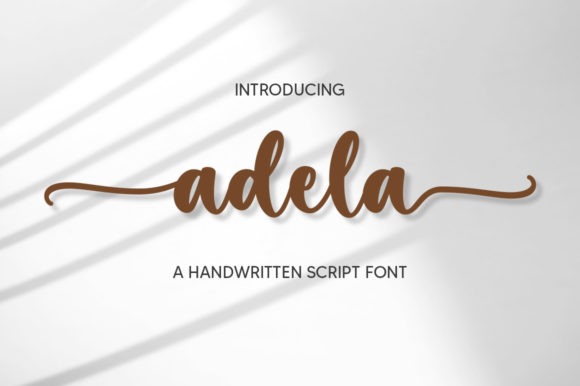
Feast your eyes on 'Adela Font' - the loveliest handwritten font in town, brought to you by the creative genius of Nirmala Creative. 'Adela Font' is a remarkable blend of timeless elegance and modern charm, designed to make your designs stand out with an enchanting touch of romance.
Picture the perfect font that adds a touch of elegance and heartfelt emotion to your projects - 'Adela Font' is just that and more. Its intricate lines and beautiful curves dance gracefully across any canvas, making a lasting impression that resonates with your audience.
With 'Adela Font,' you can effortlessly create eye-catching logos, branding materials, and heartfelt quotes that speak volumes. Its PUA encoding makes accessing all glyphs and swashes a seamless experience, ensuring you have the creative freedom to express your unique style.
'Adela Font' is more than just a font; it's a powerful tool that ignites your creativity, fueling a burst of inspiration. It's a gateway to capturing hearts, evoking emotions, and making a lasting impact with every design you create.
So, let 'Adela Font' be your new muse, guiding you towards creating designs that captivate and connect with your audience. Let it be the bridge between your creative vision and heartfelt expression.